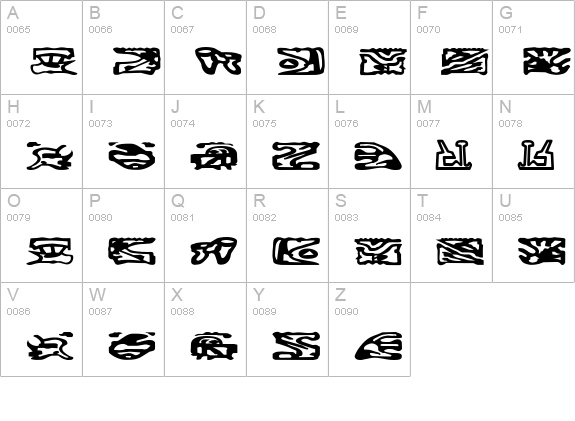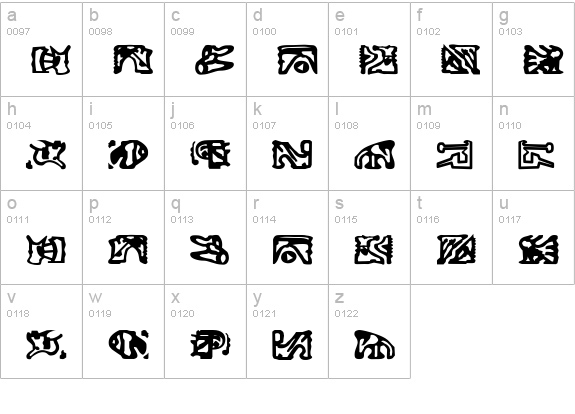
ST Bajoran Ideogram Font Details
Introducing the stunning ST Bajoran Ideogram font, a captivating typeface that seamlessly blends modern aesthetics with the rich cultural heritage of the Bajoran civilization. This extraordinary font is a testament to the artistic ingenuity of the Bajoran people, capturing the essence of their ancient ideograms and infusing them with a contemporary twist. ST Bajoran Ideogram font offers a unique and visually striking collection of characters, each meticulously crafted to reflect the intricate symbolism and profound meaning behind Bajoran ideograms. From graceful curves to intricate lines, every stroke of this font tells a story, providing a truly immersive experience for any design project. But what truly sets ST Bajoran Ideogram font apart is its commitment to accessibility and inclusivity. As a font that celebrates the rich cultural heritage of the Bajoran people, it is important that it reaches as many individuals as possible. That is why this font is freely available to download at FontsMarket.com, ensuring that designers, creators, and enthusiasts from all walks of life can harness its expressive power without any barriers. Whether you are designing a poster, creating a logo, or simply adding a touch of artistic flair to your personal projects, ST Bajoran Ideogram font will undoubtedly elevate your work to new heights. Its versatility and attention to detail make it the perfect choice for those seeking to infuse their designs with a touch of mystique and cultural authenticity. Embrace the beauty of the Bajoran civilization, honor their rich heritage, and let your creativity soar with the mesmerizing ST Bajoran Ideogram font. Download it for free today at FontsMarket.com and unlock a world of endless artistic possibilities.